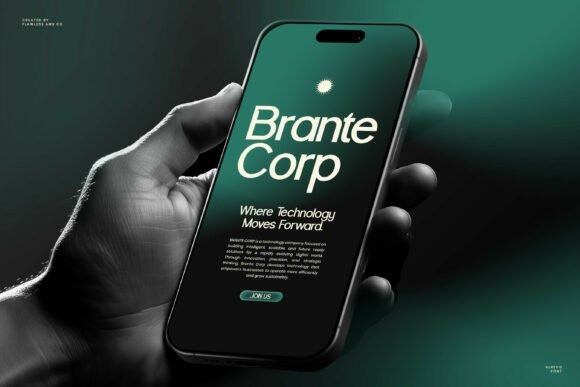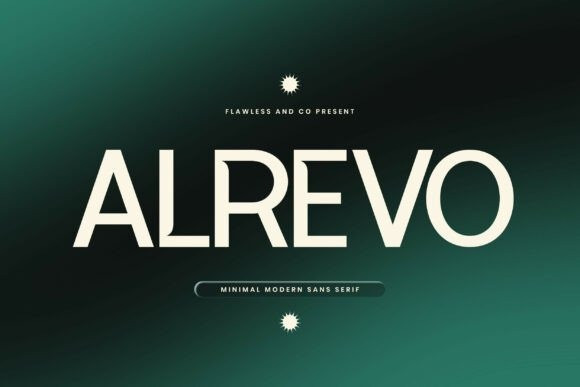
Alrevo Font
Alrevo Font is a modern sans serif font designed with a clean, minimal, and contemporary aesthetic. Featuring balanced proportions and smooth geometric forms, Alrevo delivers a refined visual tone that feels confident, versatile, and timeless. Its simplicity allows your message to stand out clearly, making it an excellent choice for both digital and print applications